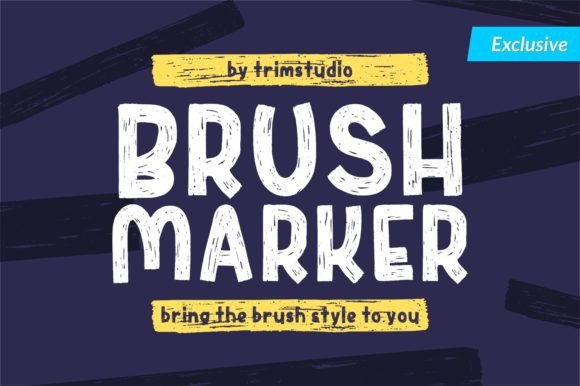
The Brush Marker Font: A Game-Changer for Designers and Crafters
I’ll never forget the time I was working on a project for a client who wanted a modern, edgy look. I had spent hours scouring the internet for the perfect font, but nothing seemed quite right. That was until I stumbled upon the Brush Marker font. It was like a breath of fresh air – the perfect blend of cool and modern that instantly elevated my design. In this article, I’ll share my experience with the Brush Marker font, its features, and how to make the most of it in your designs.
• ✨ Unique and modern brush display font that adds a touch of sophistication to any design
• ✅ Highly versatile and can be used for a wide range of projects, from branding to packaging
• 🎨 Beautifully crafted with attention to detail, giving it a premium feel
While the Brush Marker font is amazing, there are a few things to keep in mind:
• 🤔 Some characters may not work well at very small sizes, so it’s best to use it at larger sizes (20pt+)
• ⚠️ Limited language support, so it’s best to use it for English or languages that use similar character sets
The Designer Inspiration Behind Brush Marker Font
The Brush Marker font was designed by a team of creatives who wanted to create a modern, edgy font that would add a touch of sophistication to any design. Inspired by the look of brush markers, the font features bold lines, unique character shapes, and a dash of personality. Whether you’re a designer, crafter, or hobbyist, the Brush Marker font is sure to inspire your next project.
What is the Brush Marker font? The Brush Marker font is a modern brush display font that’s perfect for designs that need a cool, edgy look.
Is the Brush Marker font suitable for body text? No, the Brush Marker font is best used for headlines, titles, and short paragraphs. It’s not recommended for body text due to its bold, display nature.